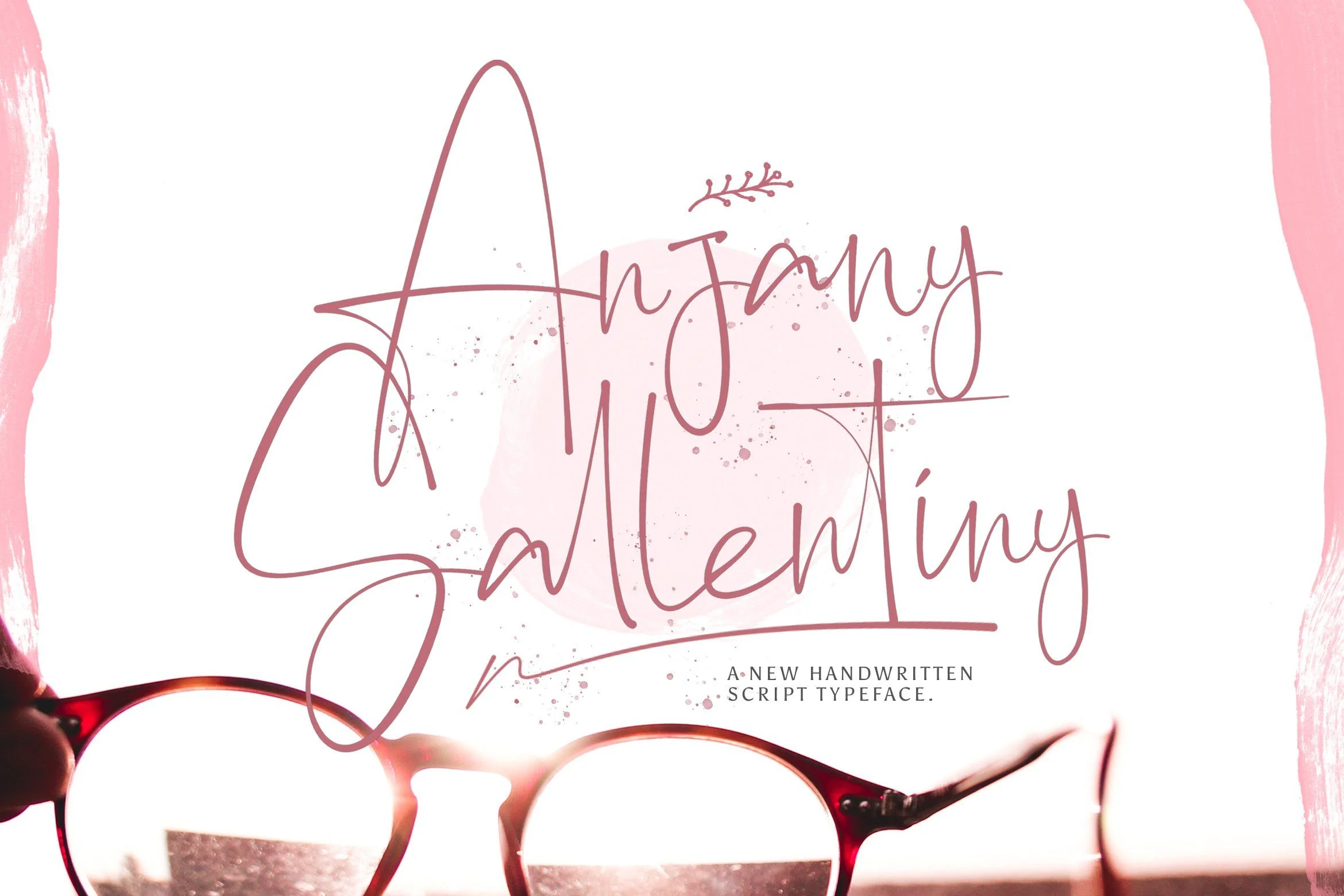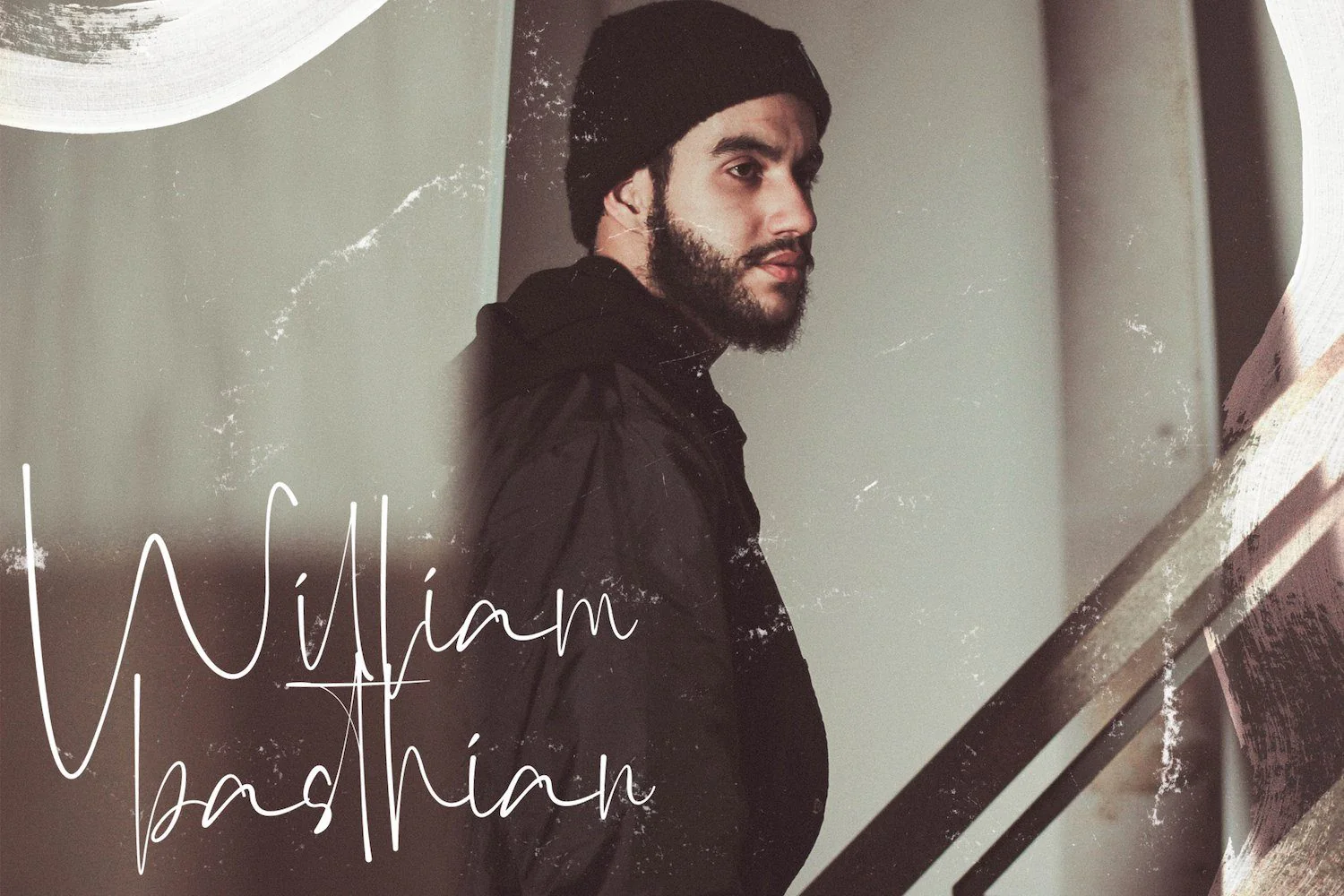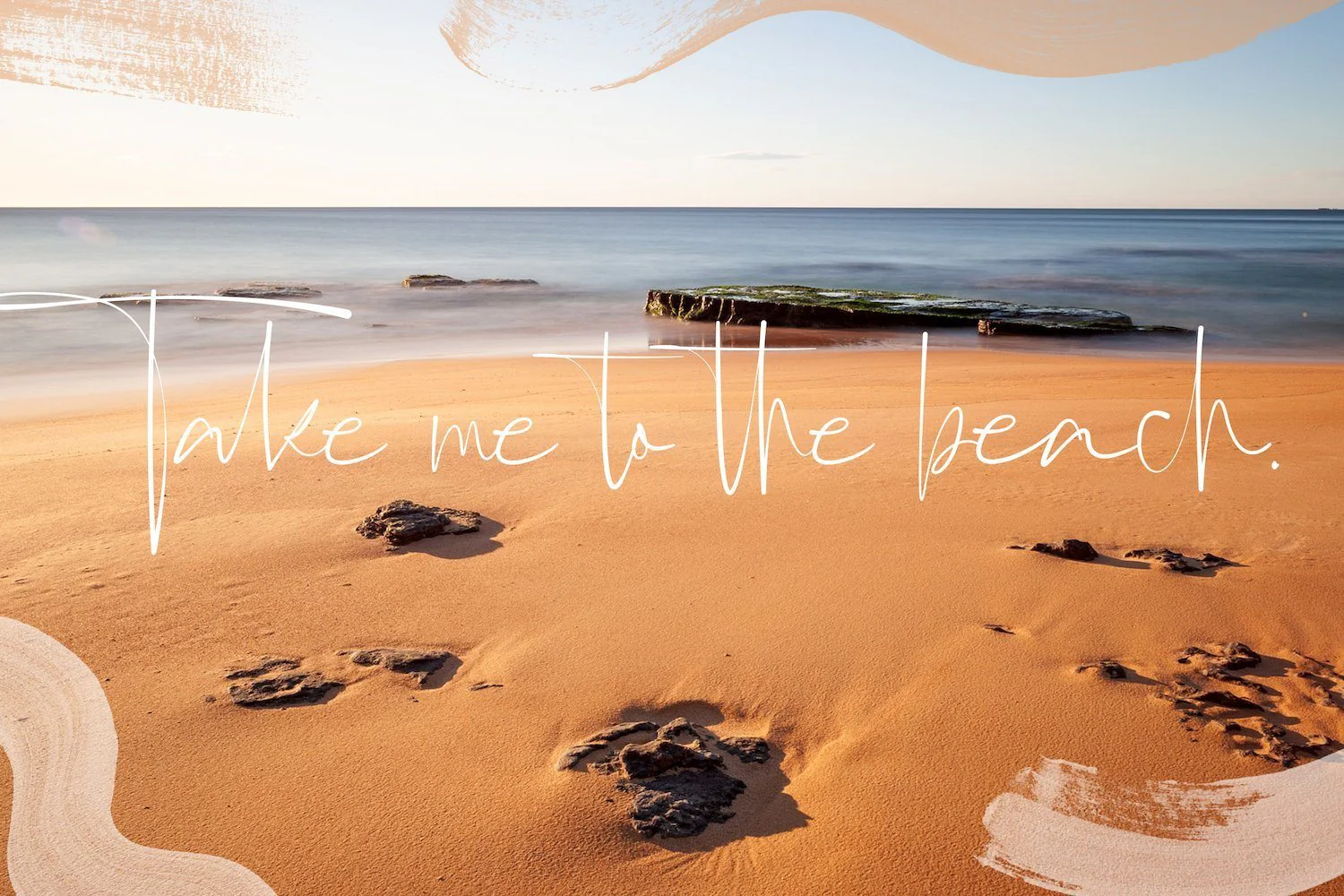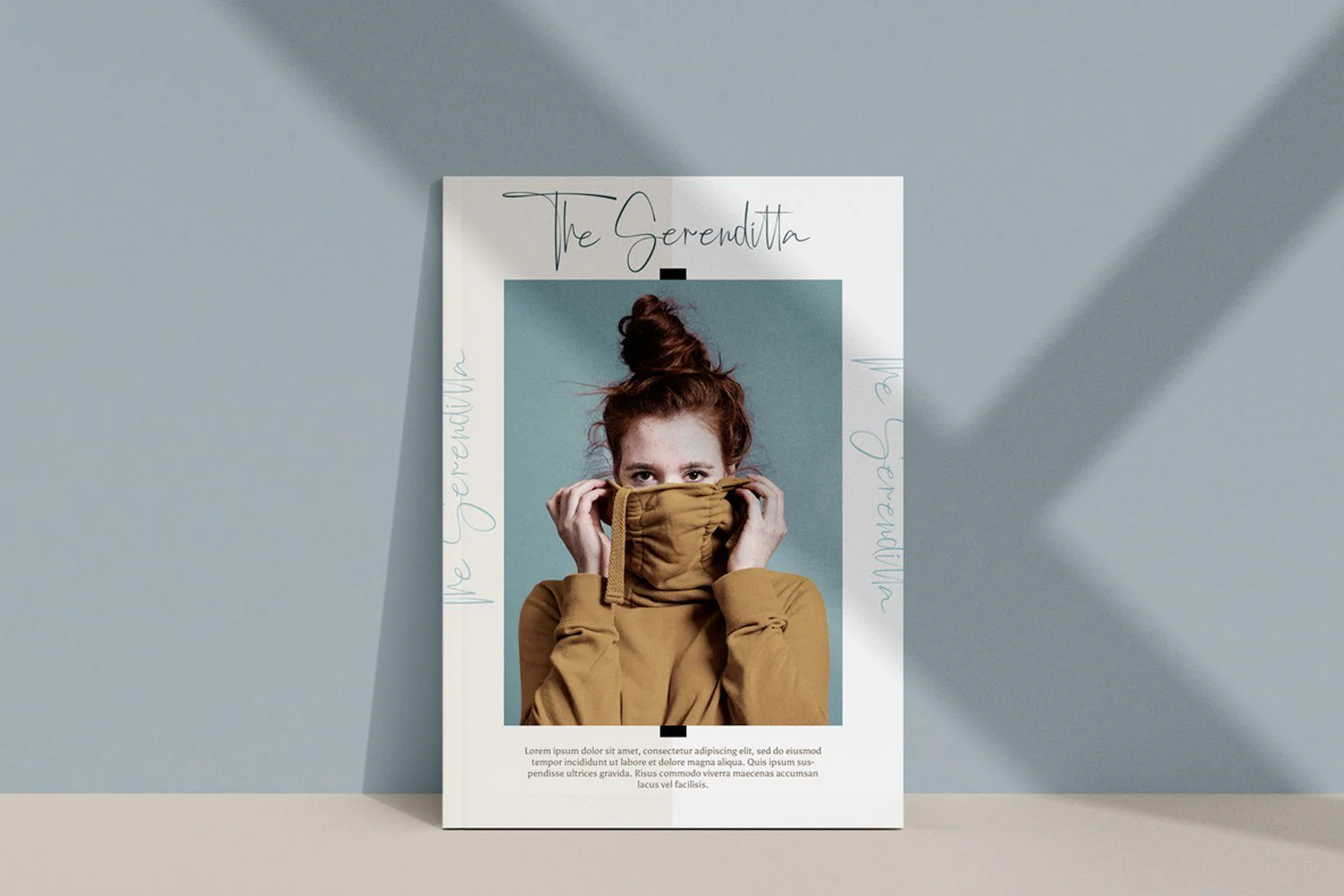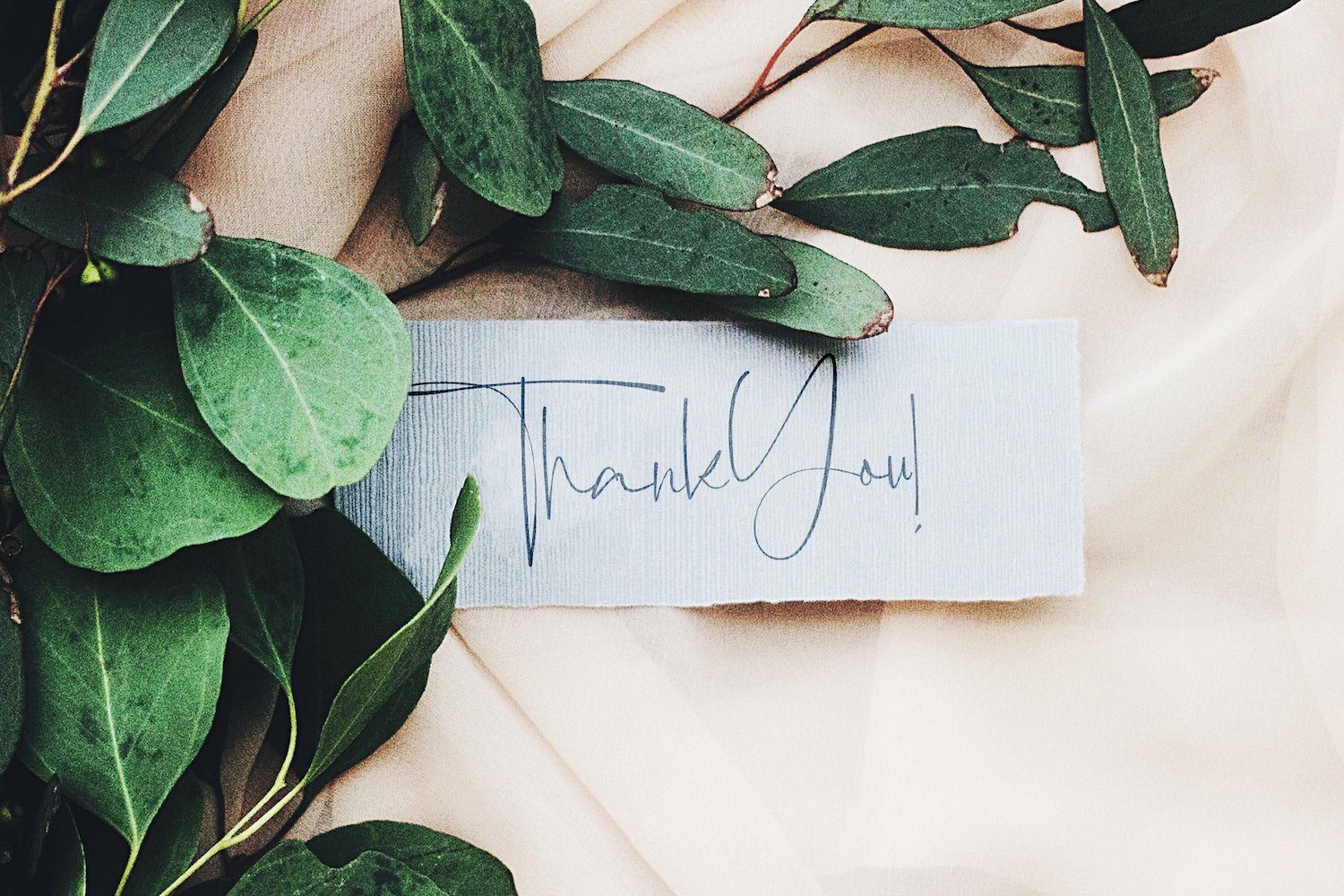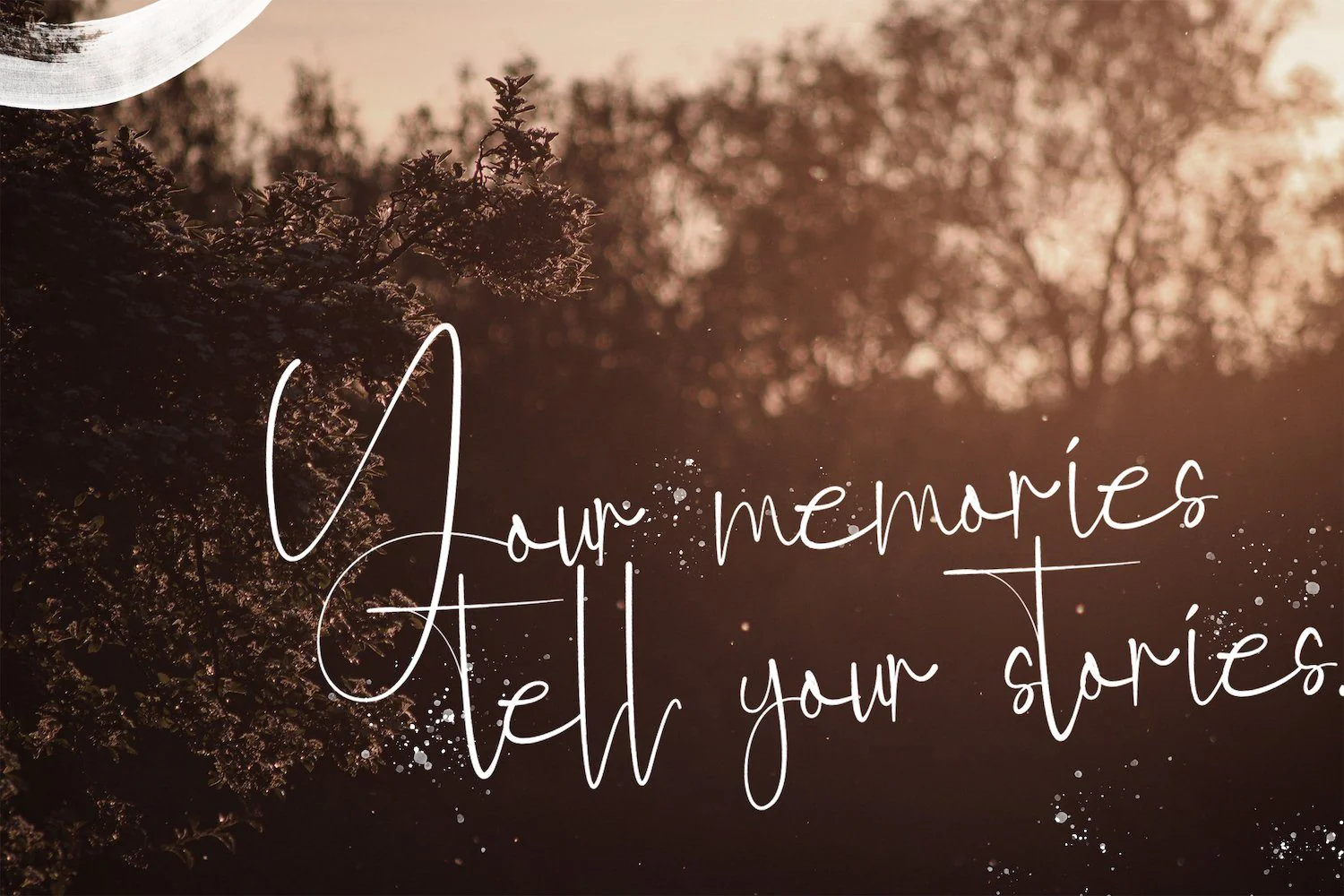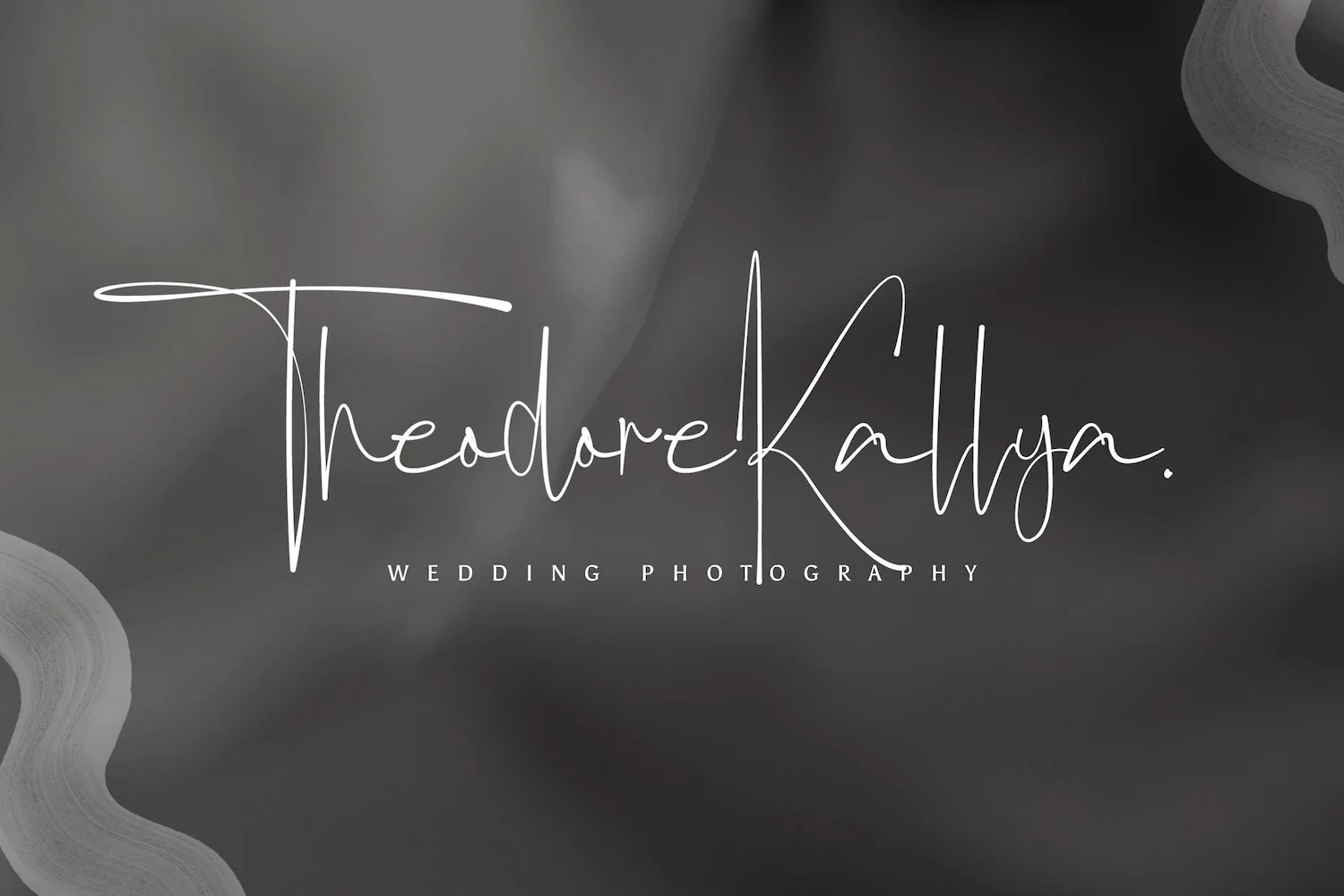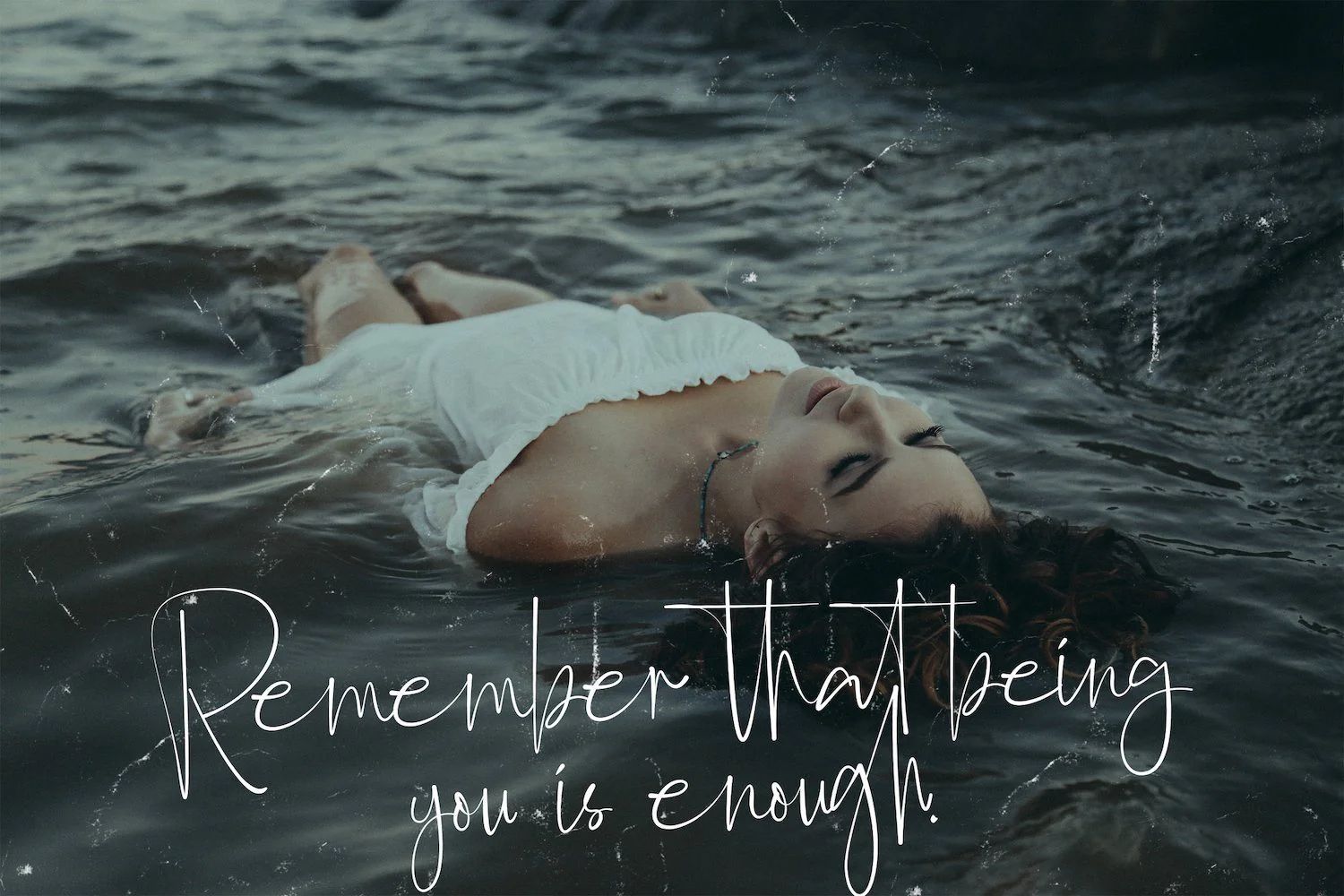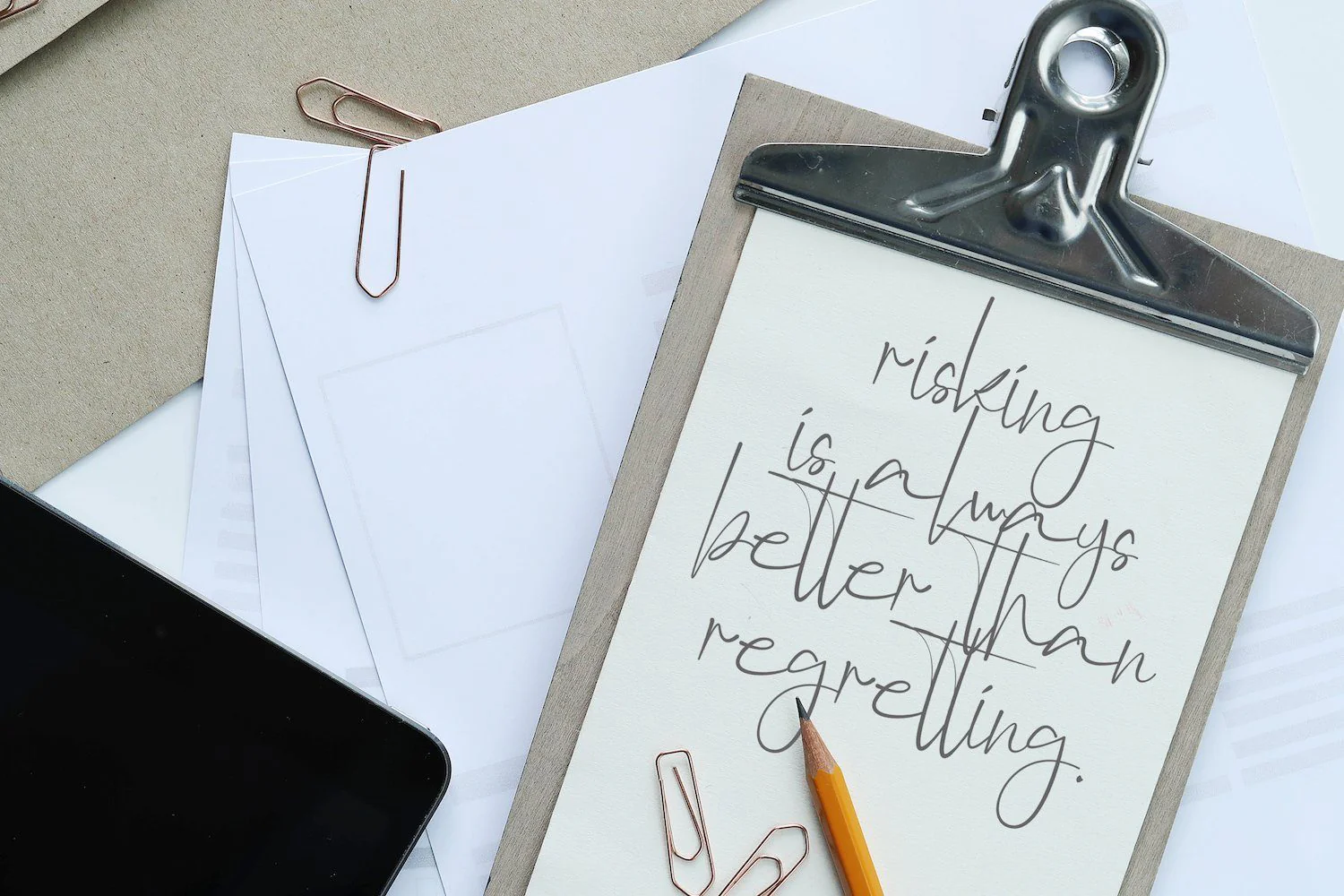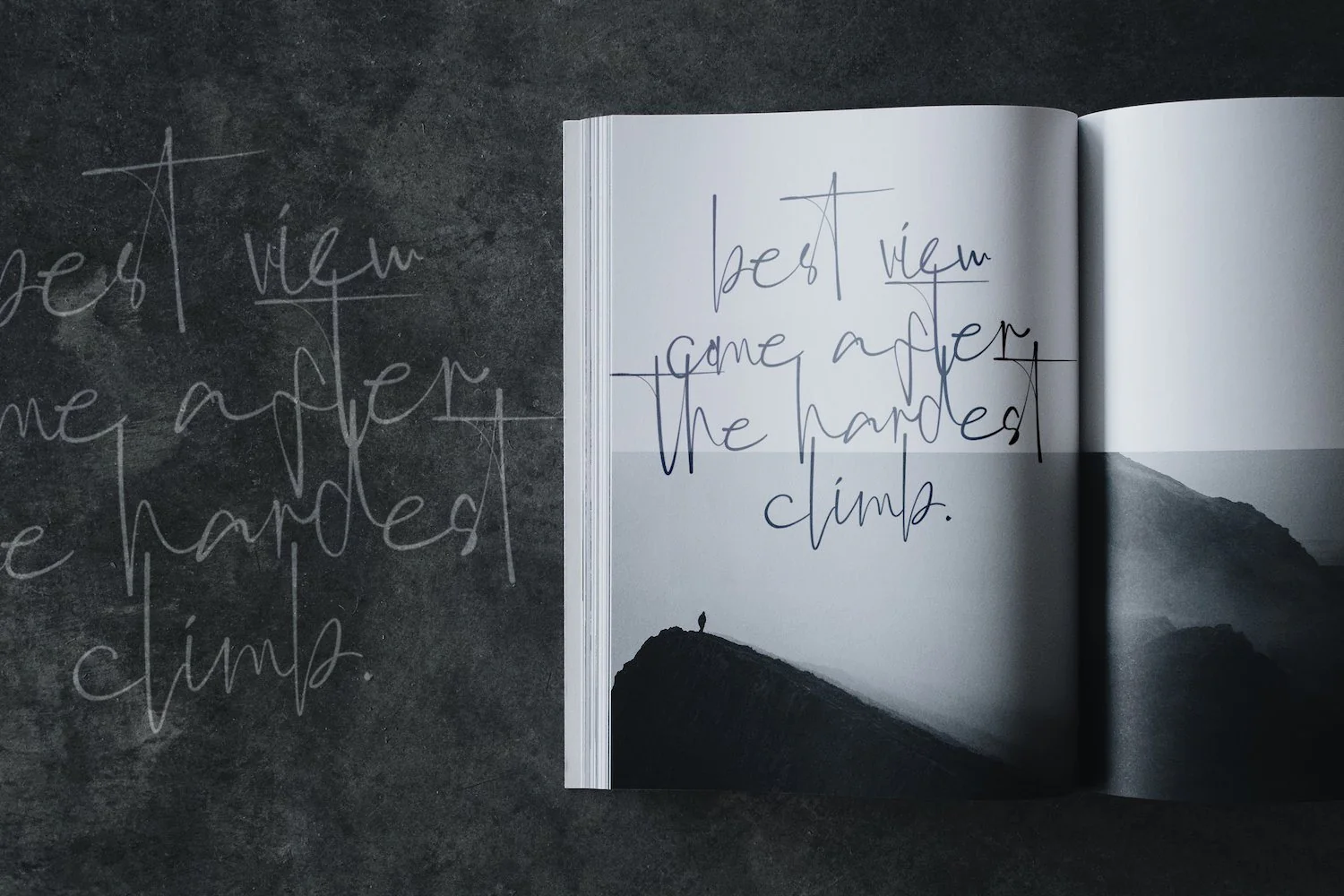
Anjany Sallentiny - Handwritten Font
Introducing Anjany Sallentiny - Handwritten Font
Anjany Sallentiny is a delicate, elegant and flowing handwritten font. It has beautiful and well balanced characters and as a result, it matches a wide pool of designs. Add it to your most creative ideas and notice how it makes them come alive!
- Swash